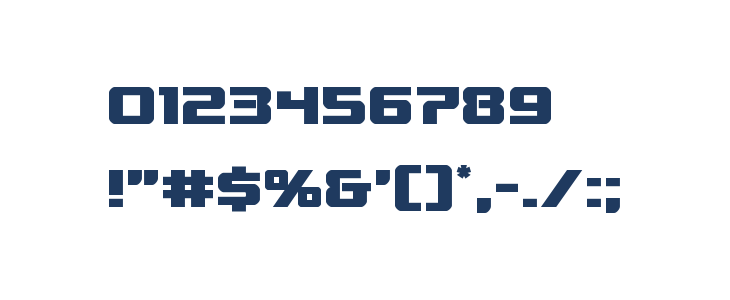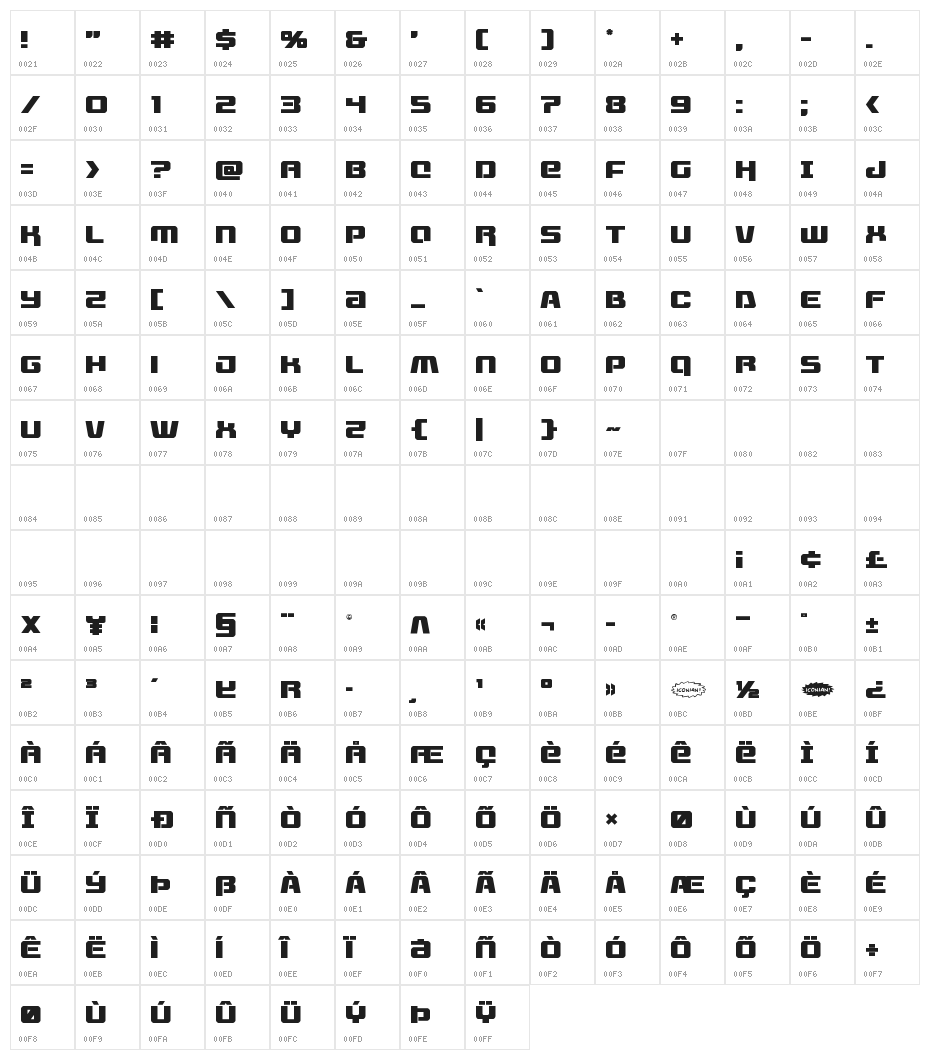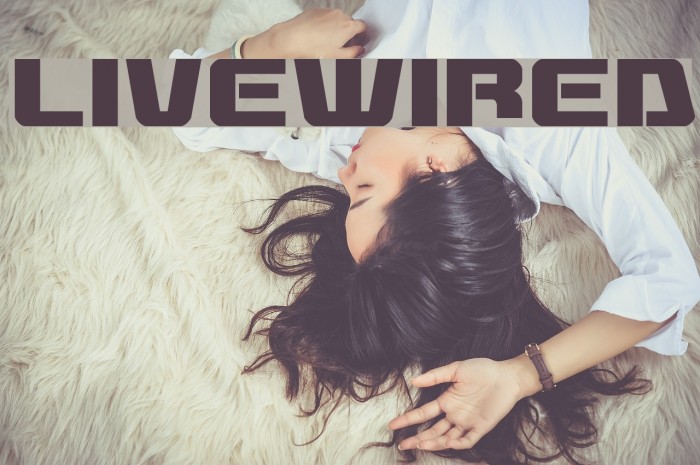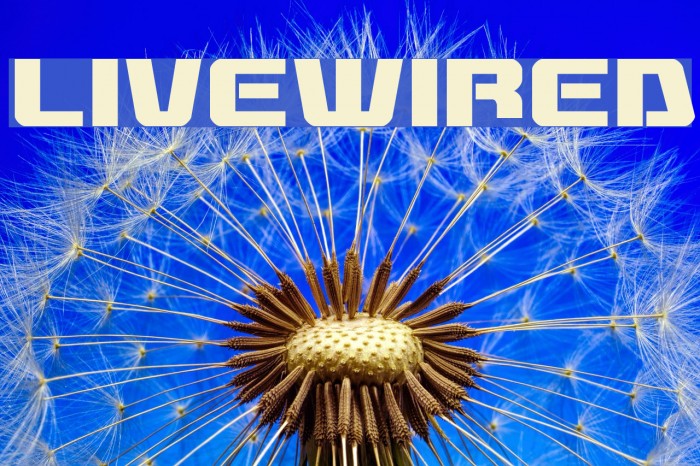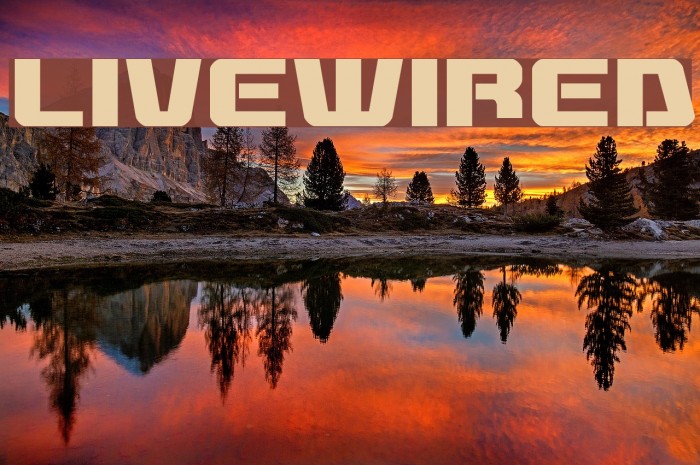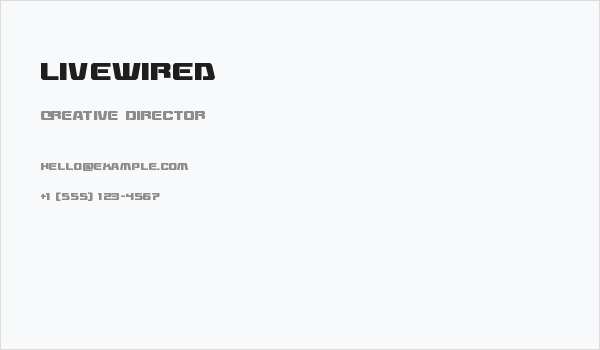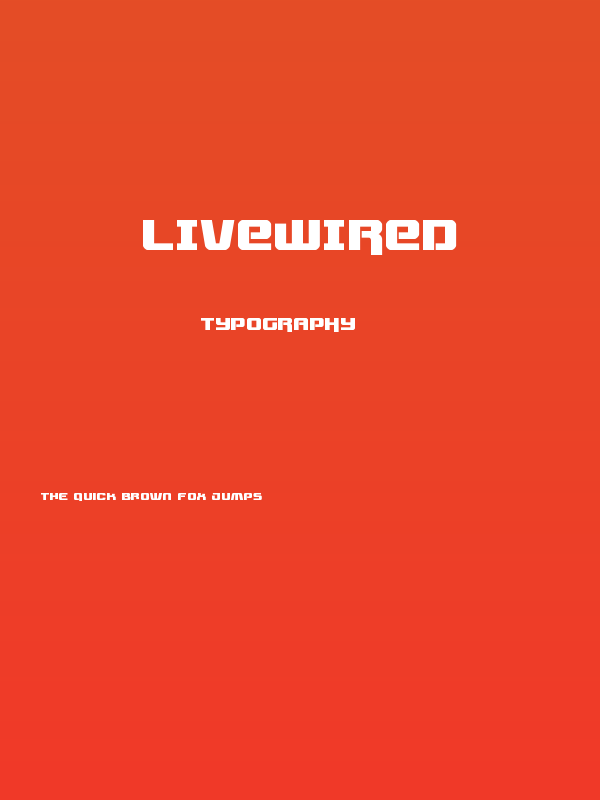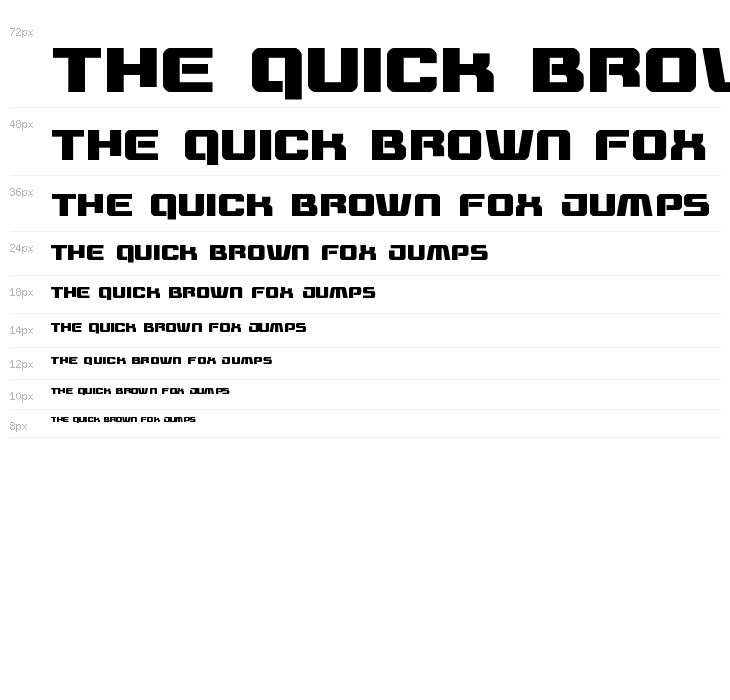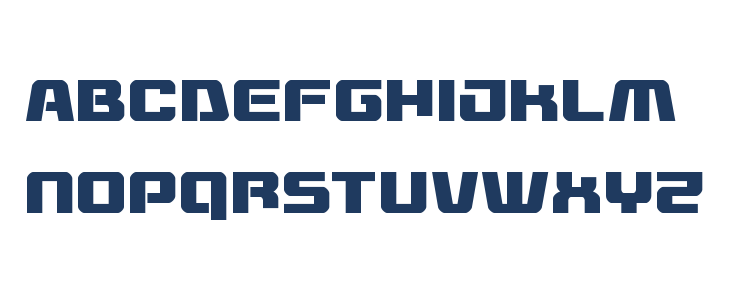
Livewired Font
Livewired Description
This font features a bold and geometric design, characterized by its blocky and angular letterforms. The uppercase and lowercase letters share a consistent style, with sharp edges and a futuristic aesthetic. The numbers and special characters maintain this cohesive look, making the font suitable for modern and tech-oriented designs. Its strong presence and unique style make it stand out, while the uniformity in stroke width adds to its bold appearance.
| Proposed Projects | Ideal for technology branding, video game titles, sci-fi posters, and modern digital interfaces. |